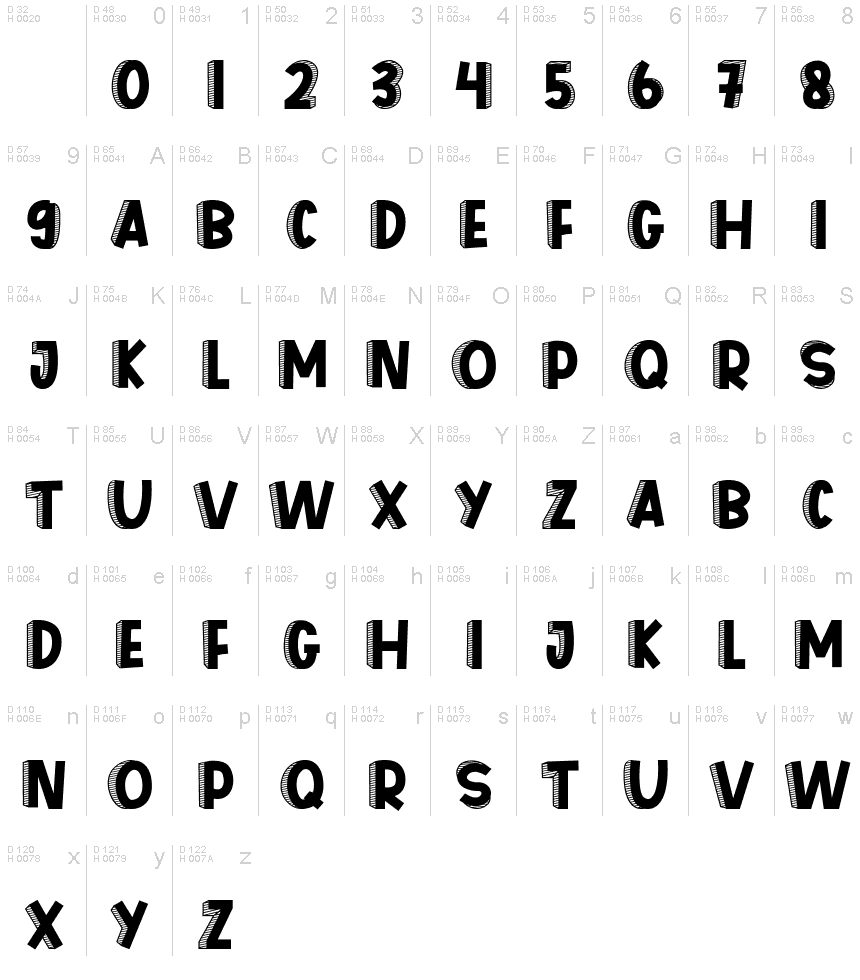
Paradox
Paradox, a bold and captivating display font designed by Share Font, is the perfect choice for projects that require a touch of whimsy and playfulness.
Its cartoon-style characters will bring life to children's books, comic strips, and animated films, captivating young readers and viewers with its vibrant energy. The bold weight of Paradox ensures that every letter stands out, making it ideal for eye-catching logo designs, posters, and packaging designs.